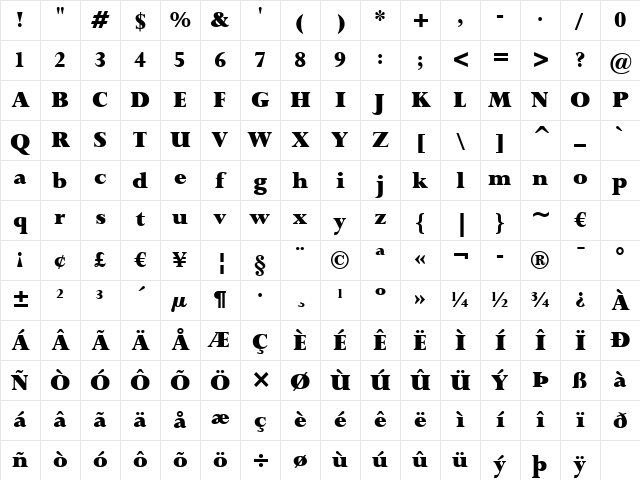
Lapidary333 Blk BT Black
Design Context for Lapidary333 Blk BT
Lapidary333 Blk BT is a composed and adaptable typeface that performs quietly and consistently across a wide range of design contexts.
Pro Tip: Use Lapidary333 Blk BT in both headline and body roles to test its range before committing to a single application.